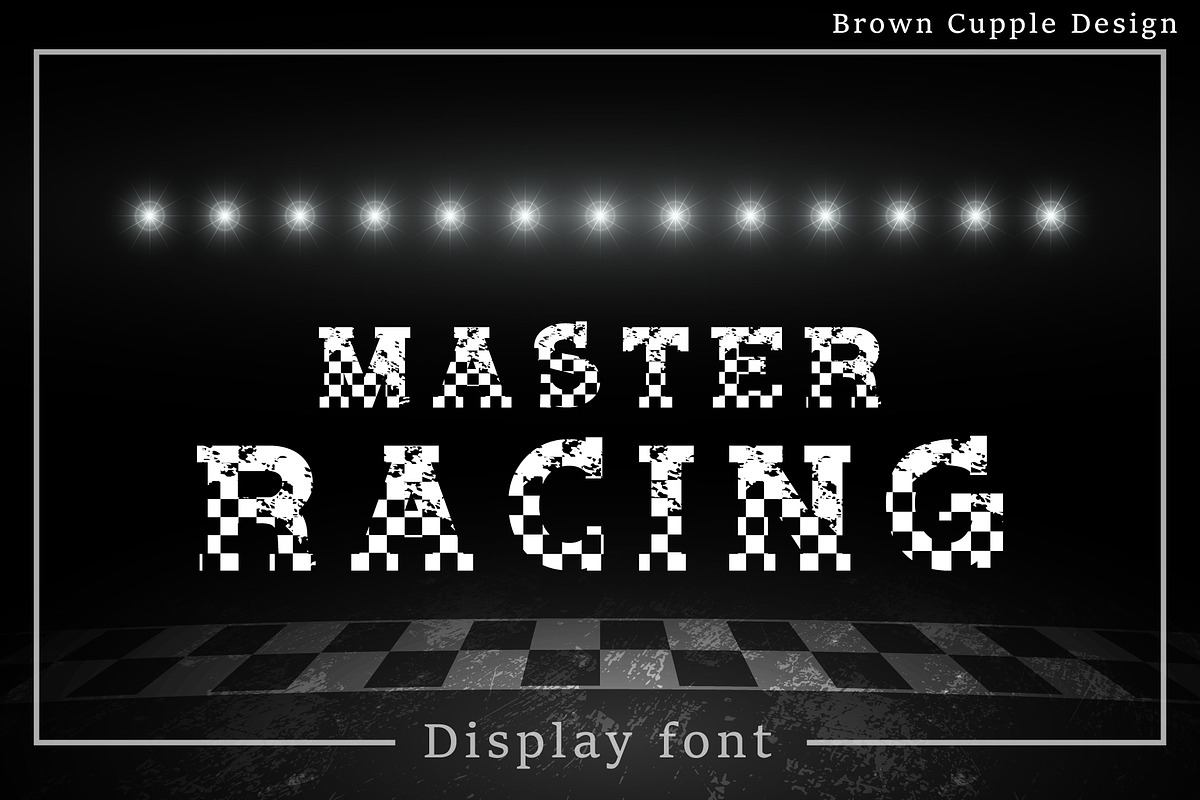
Master Racing - Retro Display Font Free Download
Master Racing – Retro Display Font Free Download
Fuel your designs with vintage speed and bold energy using Master Racing – Retro Display Font Free Download. Inspired by classic motorsports and retro signage, this typeface brings a nostalgic yet powerful aesthetic that's perfect for racing-themed posters, apparel, logos, and automotive branding.
With its sharp angles, wide stance, and dynamic letterforms, Master Racing captures the thrill of the track and the attitude of old-school speed culture. It’s especially effective for headlines, event promotions, and merch that demand attention. The font includes uppercase letters, numbers, and punctuation—ideal for testing in bold, high-impact designs.